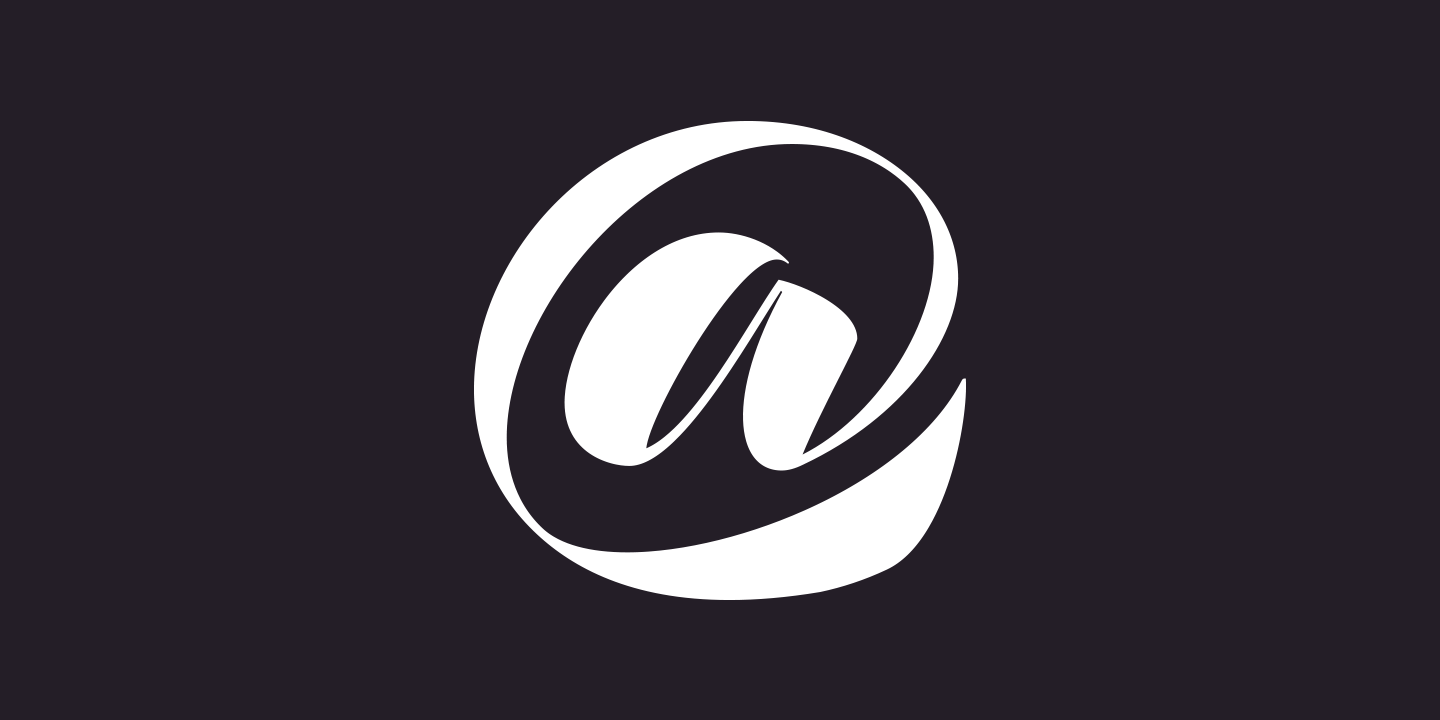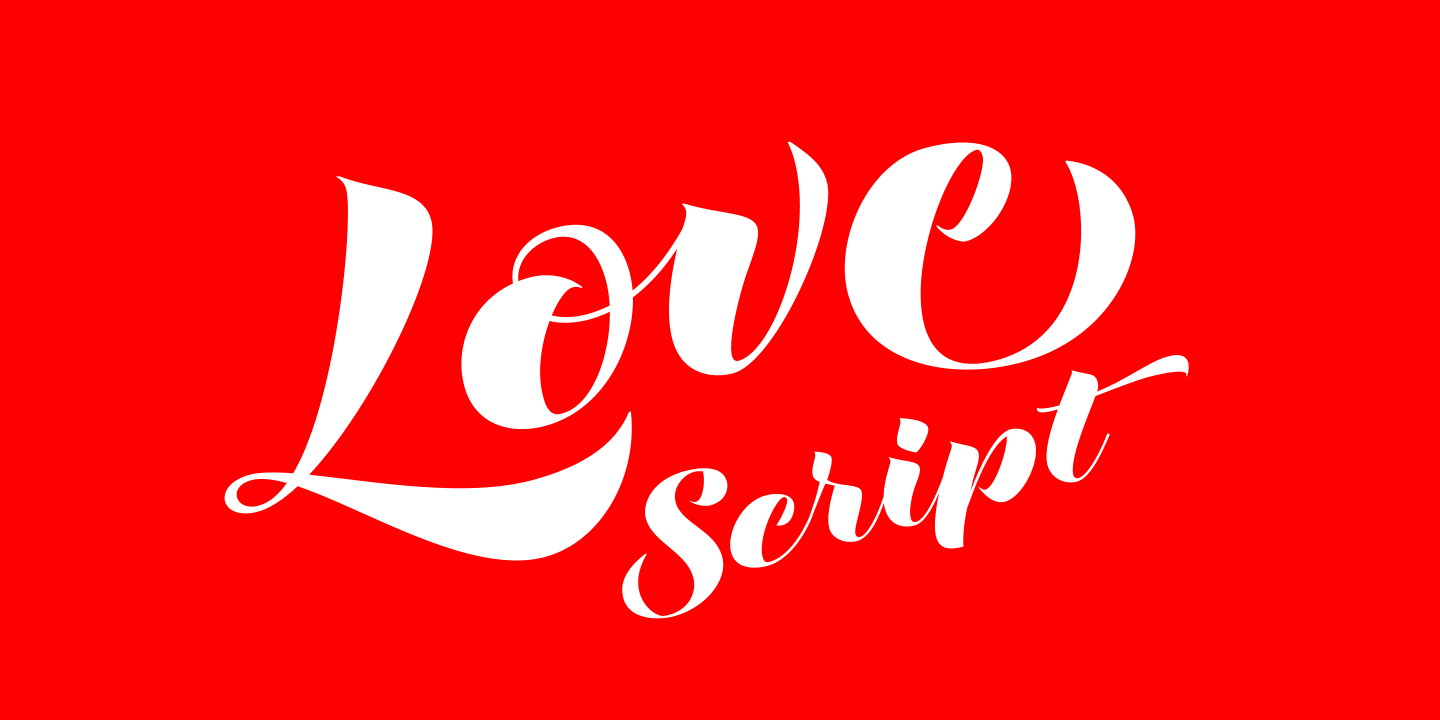
Love Script
About Love Script
Love Script came about as a way to finally answer the requests by individuals to take my brush pen/marker lettering styles and turn them into a typeface. Literally, everything lined up perfectly and there was a renewed impetus to push this genre, this…